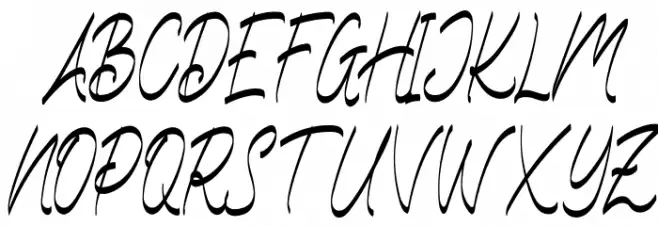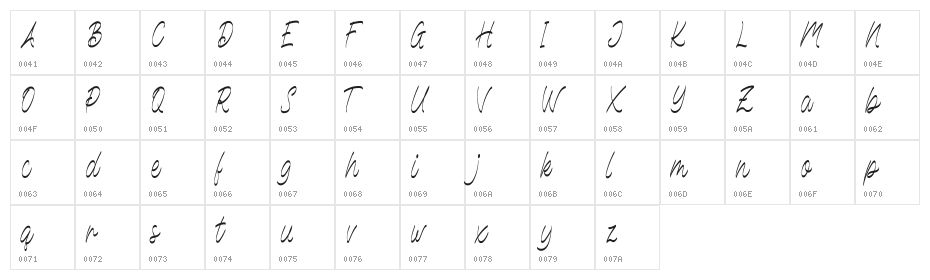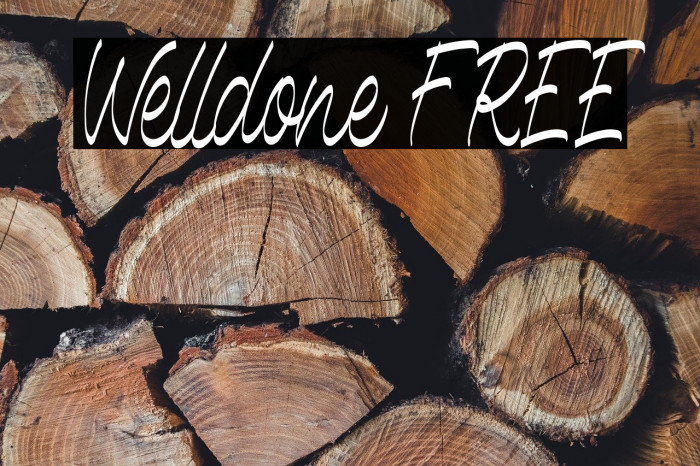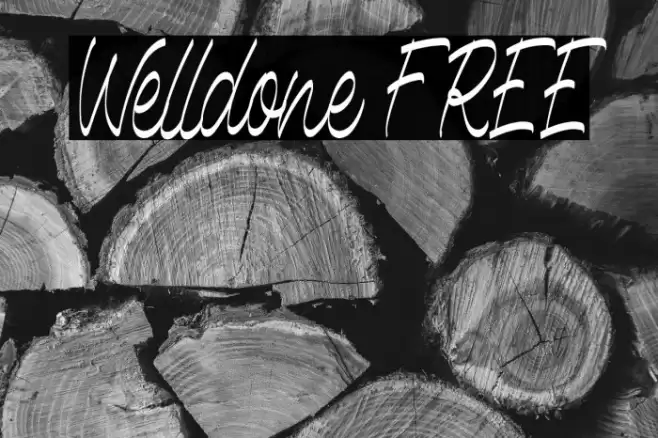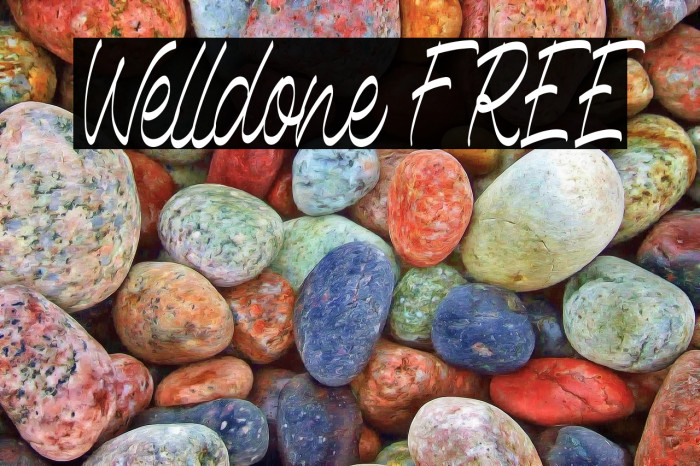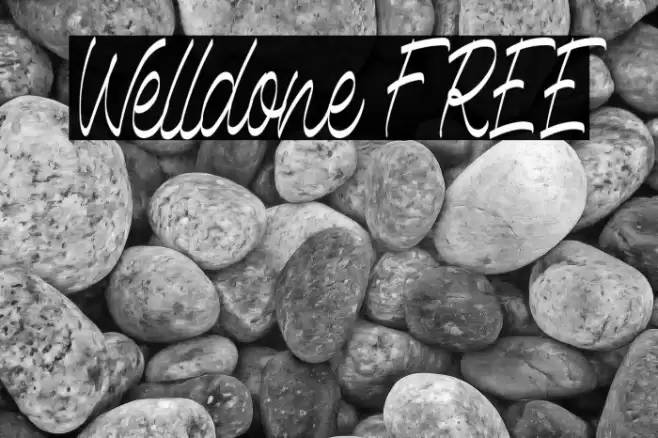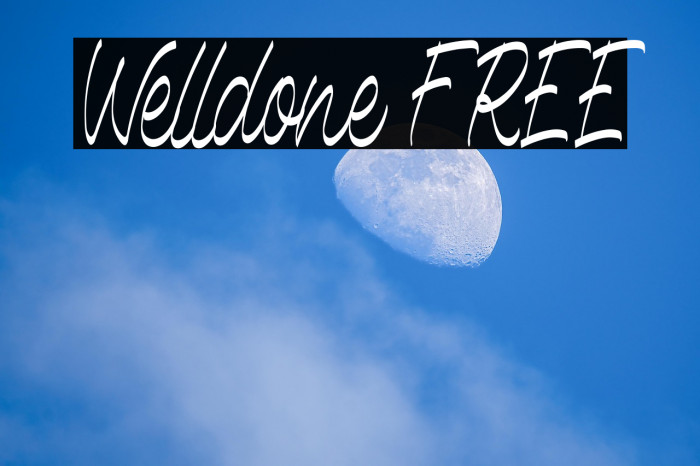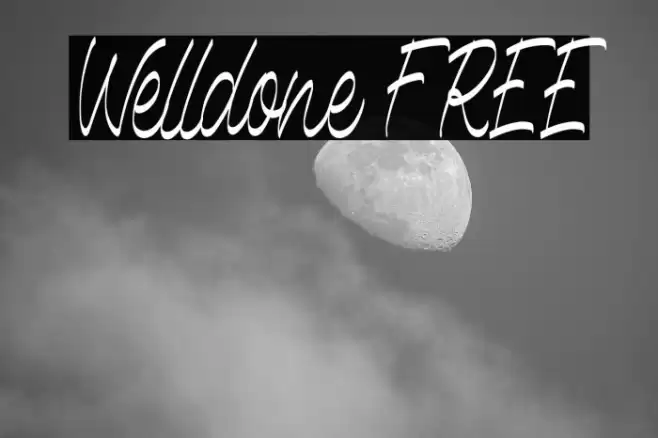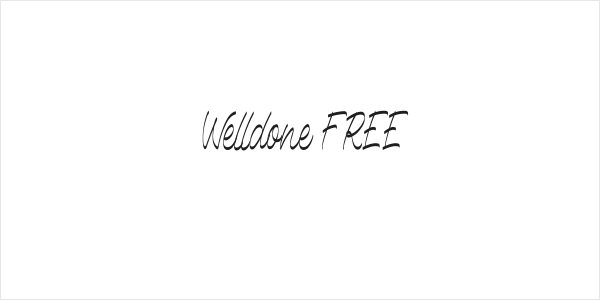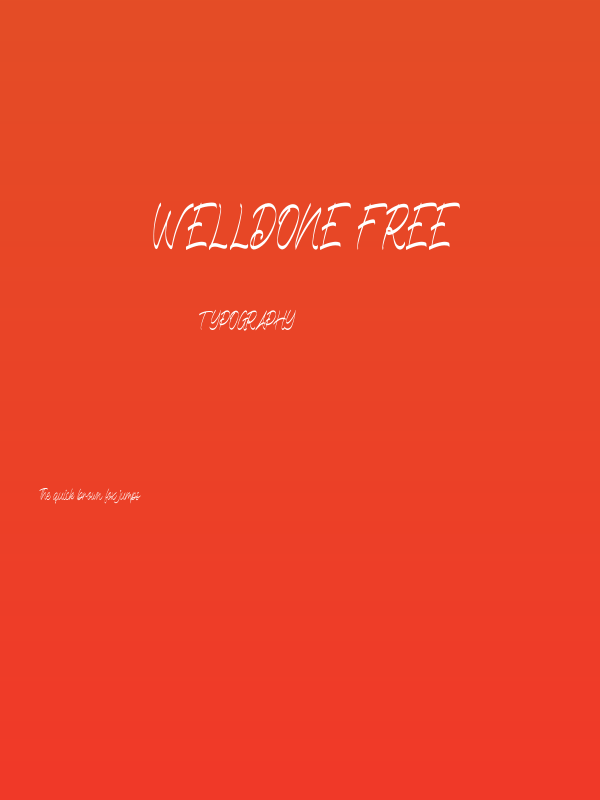
Welldone FREE Font
Welldone FREE Description
This font features a dynamic and flowing script style, characterized by its elegant and fluid strokes. The letters are interconnected, creating a sense of continuity and movement. The uppercase letters exhibit a graceful flair with elongated ascenders and descenders, while the lowercase letters maintain a consistent rhythm. The overall appearance is both sophisticated and casual, making it suitable for a variety of design applications. The font's handwritten quality adds a personal touch, enhancing its appeal for creative projects.